The typeface serves as the voice for the brand.
Grilli Type
Noël Leu
Type Project interview with Noël Leu.
1. Tell us about your company.
We, Thierry Blancpain and Noël Leu, founded Grilli Type in Switzerland in late 2009 as a collaborative avenue for working with other designers. Although the foundry is based in Lucerne, we’re active on a global scale. Thierry now lives in New York City, and Noël travels extensively, ricocheting between East Asia, North America, and Europe. The studio now numbers six, with colleagues dispersed across the globe.
But just because we’re Swiss doesn’t mean we’re neutral. We make type with a point of view, type that conveys meaning beyond the words it spells out. It also transcends technical excellence, which we consider a given — after all, if our type didn’t read and perform well in a wide range of challenging environments, we wouldn’t be doing our job. What matters to us is this: What story does a typeface tell? What kind of personality does it have?
Type may be our main gig, but it’s far from our only one. We’re graphic designers by training and temperament who happen to run a type foundry. The relationships we’ve forged with graphic designers are collaborations in the truest sense of the word. They’re essential to our mission and inform our desire to produce useful type. That’s why we make minisites for our typefaces. We want to show them in action, in context — to give them a voice and let them tell a compelling story in their own words.
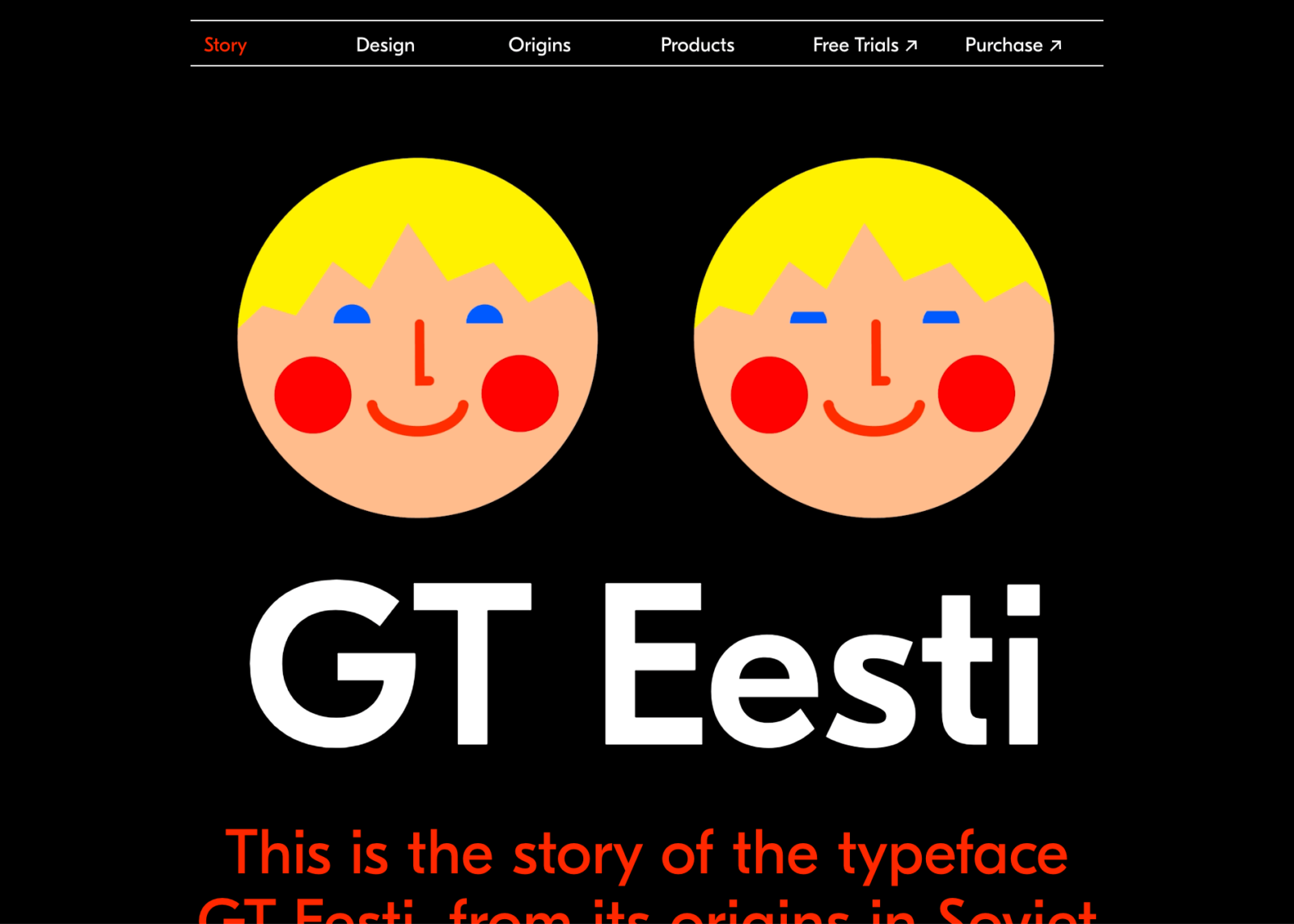
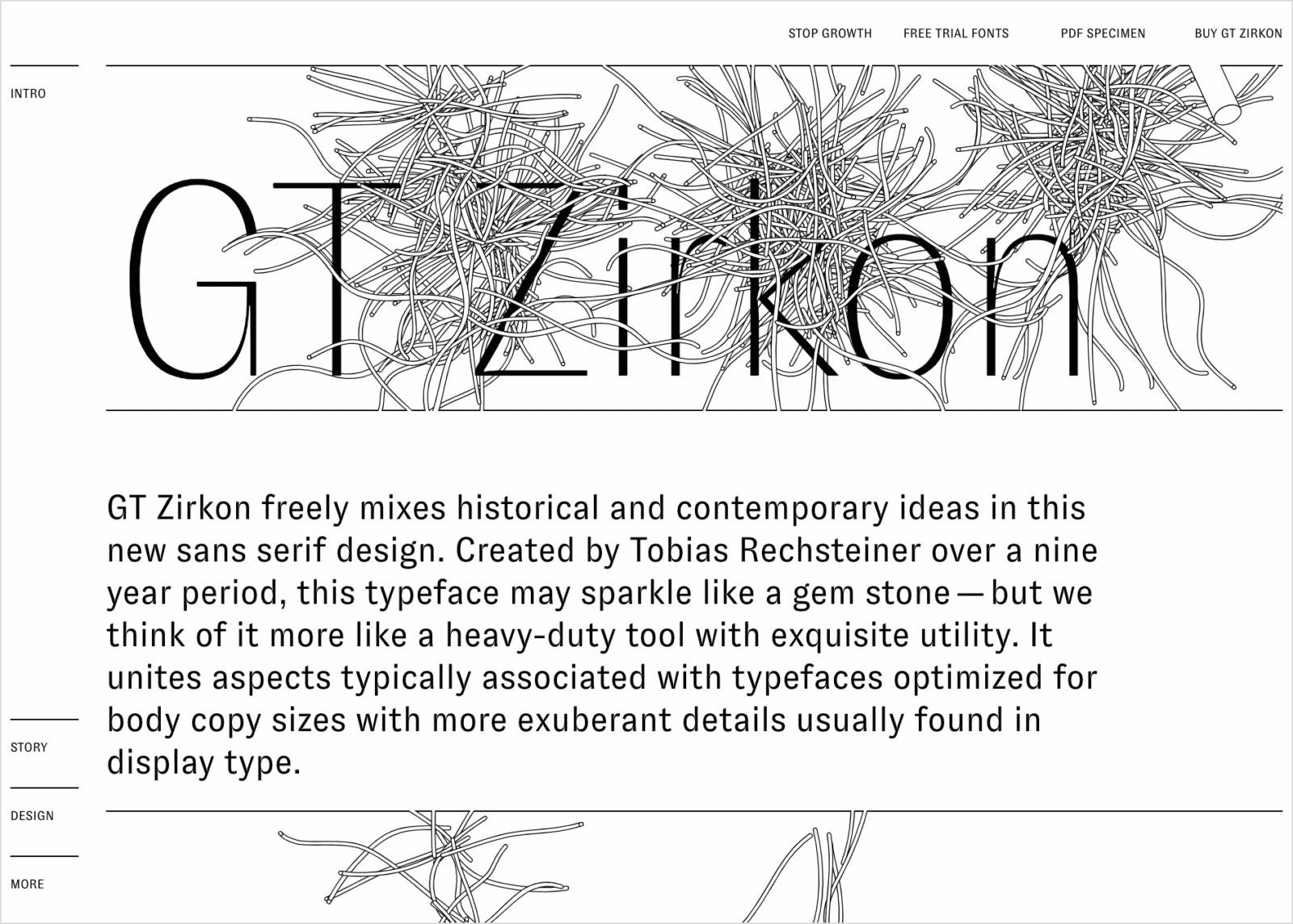
From drawing custom versions of our existing typefaces to producing language extensions to designing custom families for global brands to creating original wordmarks, we develop wide-ranging, type-focused projects tailored to our clients’ precise specifications.
2. What is (are) the main/leading font(s) of your company?
Our type library is a democracy where each typeface deserves the same attention and they all together live and shape the same design space. Ranging from compact expressive typefaces like GT Cinetype to very extensive typographic systems like GT America we think they each are individual personalities that each suit their own purpose.
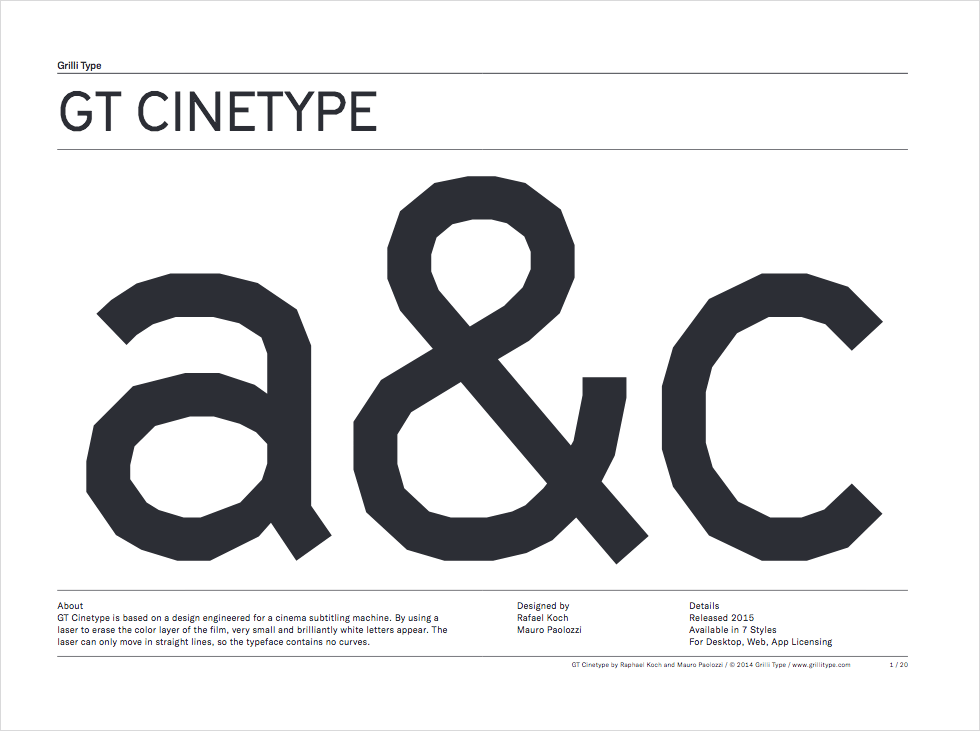
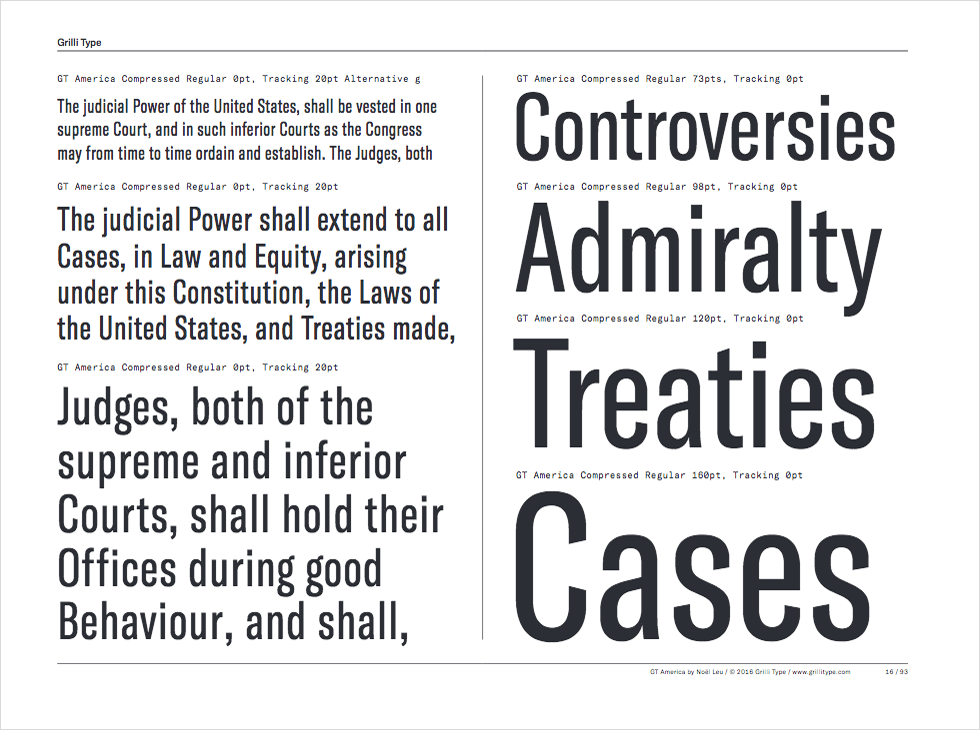
3. Is there any newly released typeface from your company?
We’ve just released GT Alpina, an expressive serif family. At the time of this interview we’re focusing on the release of GT Flexa, which will be a very extensive typographic system.
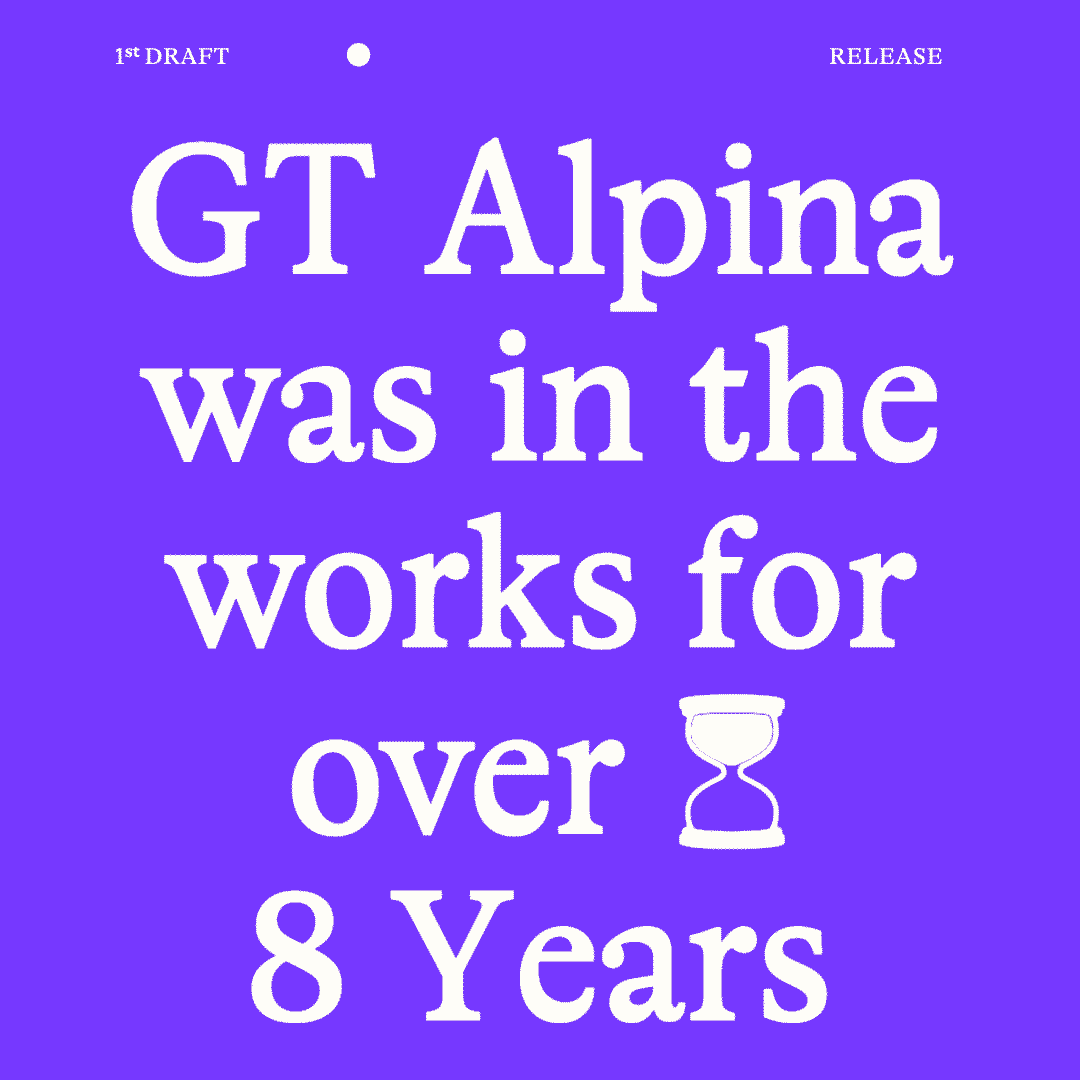
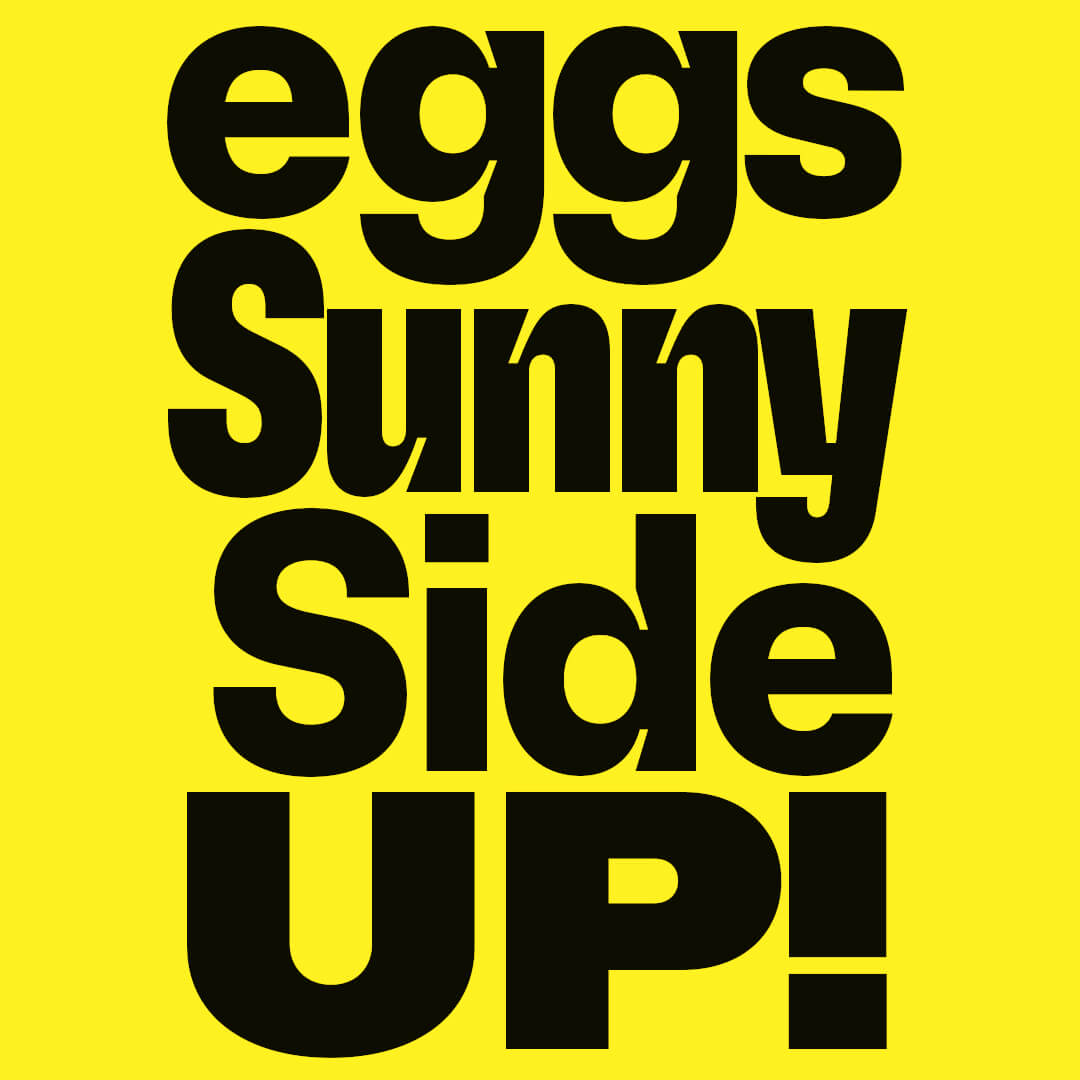
4. What is the ratio of your work for original design fonts and custom order fonts? Please tell us about custom work.
We’re balancing both aspects and recently begun to take on more commissioned work. We recently worked with WeTransfer, The Academy of Motion Picture Arts and Sciences (Oscars), Louis Vuitton, Polaroid, Esquire , Google, Samsonite and Pitchfork. We’re currently working on a quite a few very interesting projects that we’re not allowed to talk about just jet.
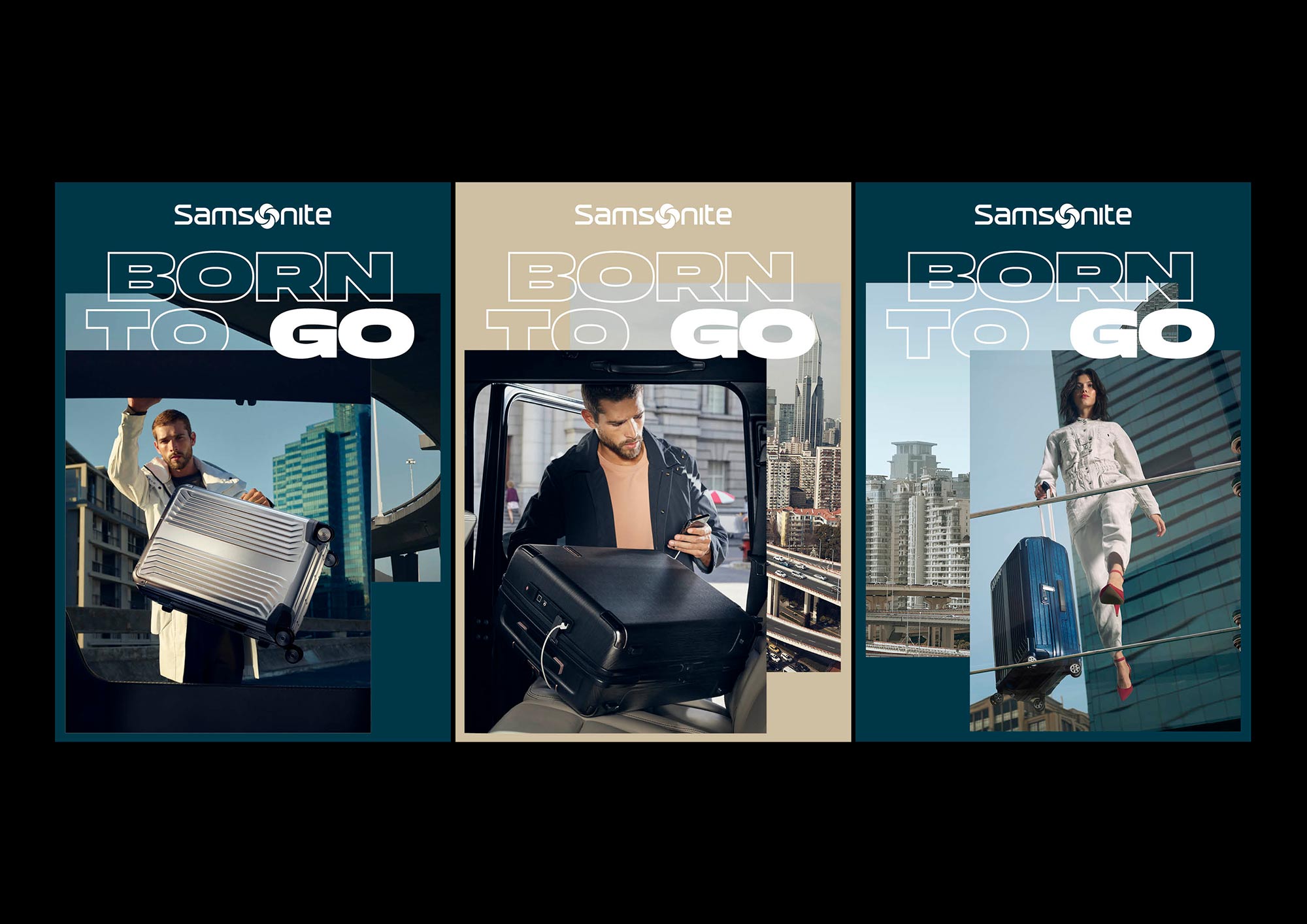
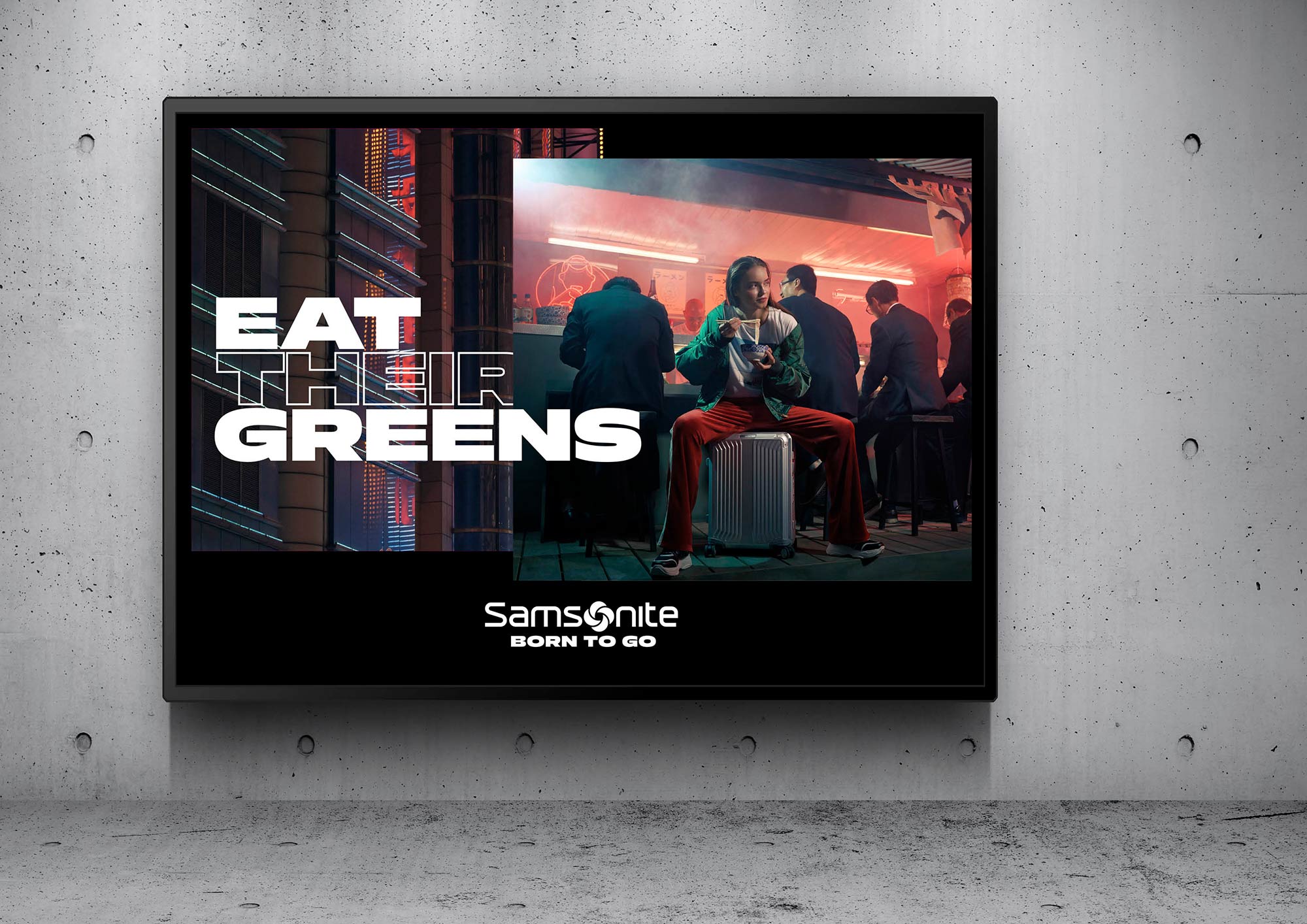
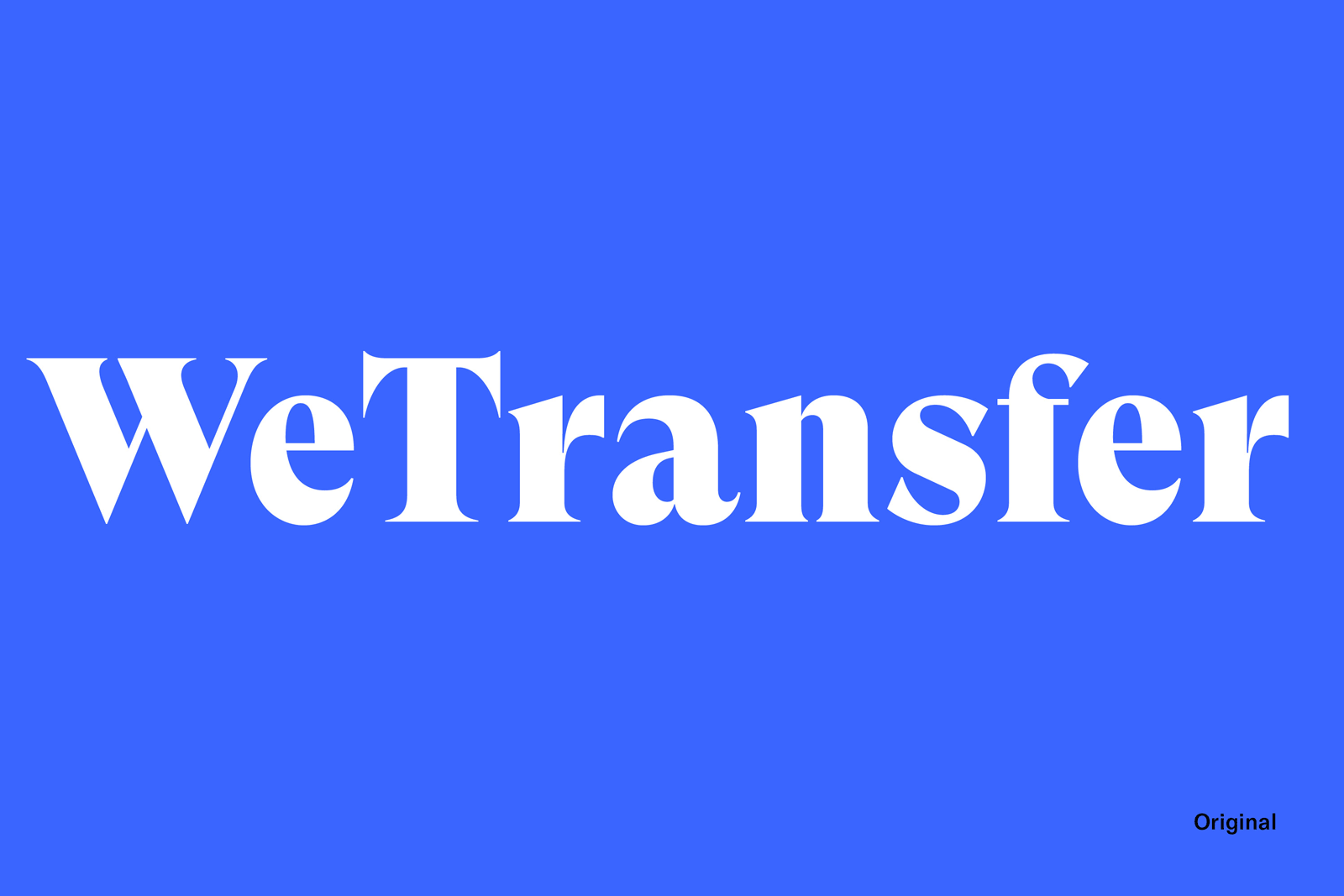
That we’re working with the highest technical and design standards in font production goes with out saying. But typefaces also have an emotional personal component that is much more complex than simple technicalities.
When we’re collaborating with clients, we bring our expertise in graphic design and a sensitivity for branding to the project. The most important aspect for us is that the typeface serves as the voice for the brand. We pay a lot of attention to the personality aspect of the typeface and we’re involving the client in finding out what that should be.
We made a small publication called Service Manual 1 which features some of the custom work we did that also includes a showcase of Japanese typefaces matching by Type Project.
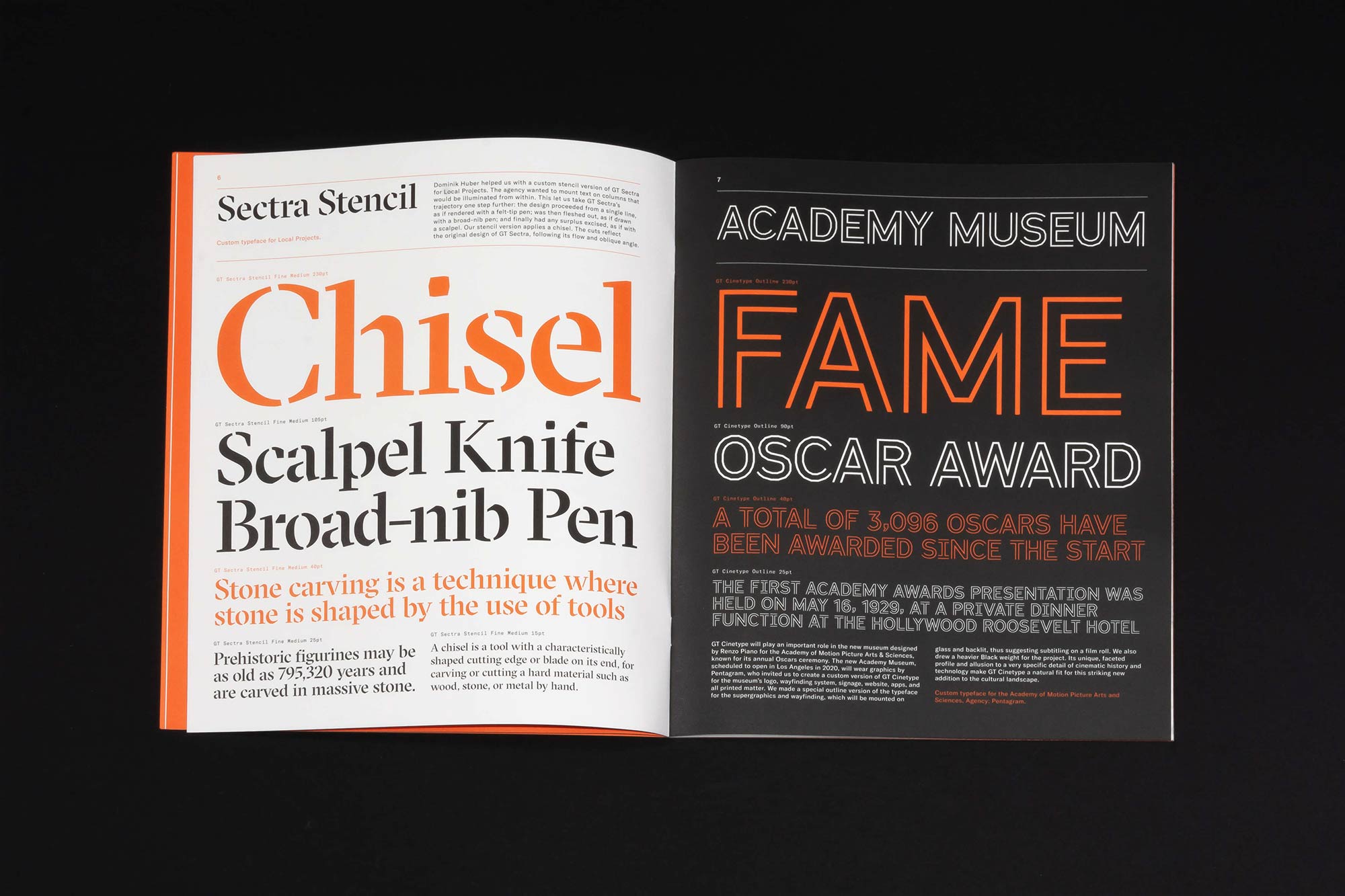
5. Can you tell us about your customer(s)? Who are they and how do they use the font?
We have a wide range of customers ranging from commercial to the cultural field and from small design studios to some of the biggest corporations in the world. None of our typefaces is designed to just suit a specific purpose so it’s completely up to our customers on how to use them.
8. Can you tell us about what you are working on right now and what you will like to work on in the future?
We’re currently working on different logo designs and custom fonts for clients. Parallel to that we also have a release schedule for our own library that includes new typefaces as well as script extensions for existing typefaces.
9. What do you think about your company positioning , for its raison d’etre in the font design/development industry ?
We appreciate your accessibility in communication and that you are also positioning your services outside of the Japanese market. I’ve personally had a very pleasant time during both of my visits and I’m very grateful to have you as a partner for Japanese script extensions.